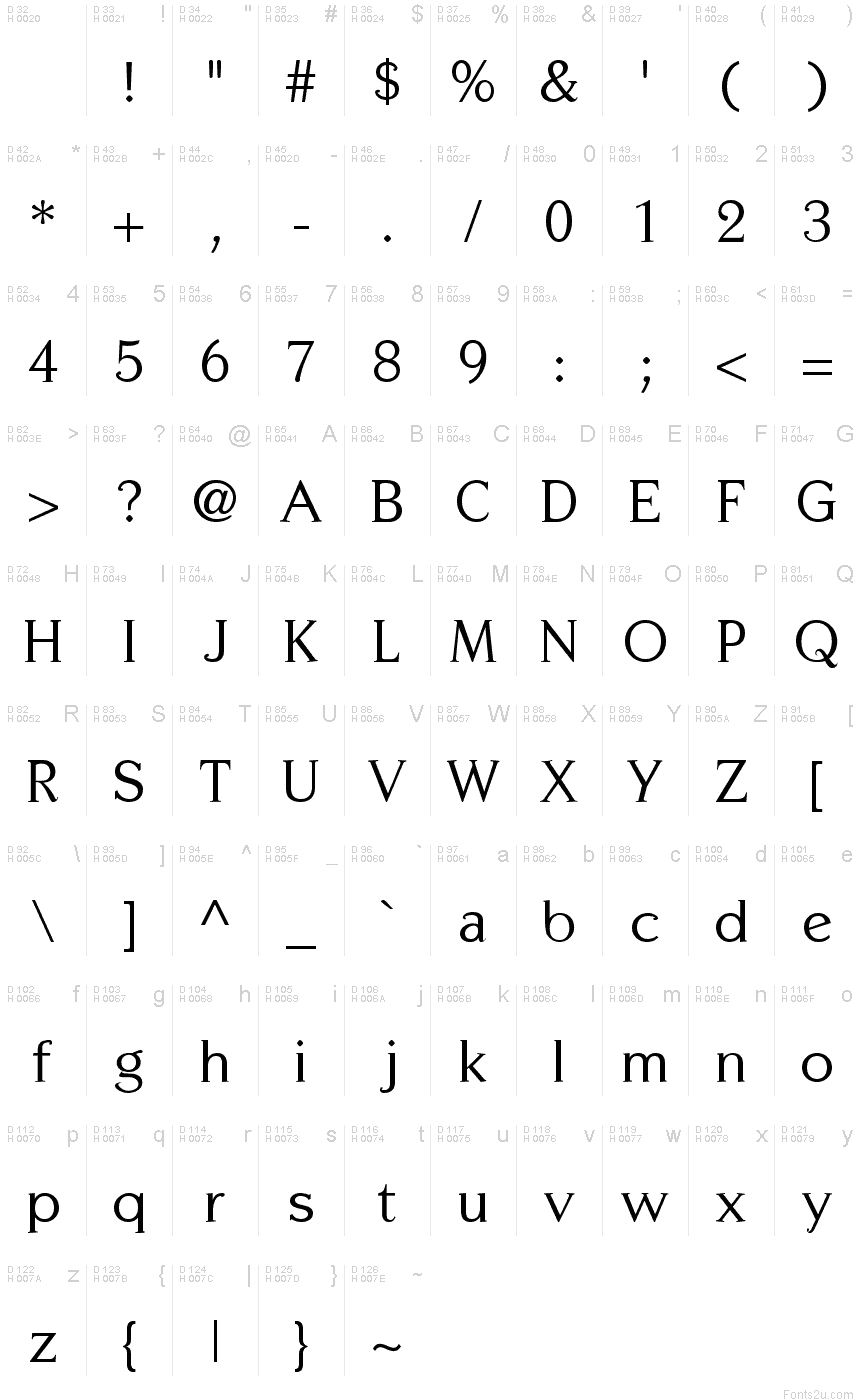
Centabel Book
Centabel Book font is a free serif typeface that brings a calm, literary feel to long reading. Its slender strokes, crisp serif details, and slightly condensed shapes help fit more text on a line without feeling cramped. The rhythm is steady and even, so paragraphs look smooth on the page and on screen, making it a strong choice when you need text that invites readers to settle in, not skim.
Using Centabel Book in your projects works beautifully for novels, editorial layouts, academic papers, reports, long-form blogs, and reading-heavy PDFs. This free font holds its clarity at smaller sizes while still looking refined in chapter openings or section titles. For a simple system, set Centabel Book for body copy and pair it with a clean sans serif for headings to keep things structured and readable.